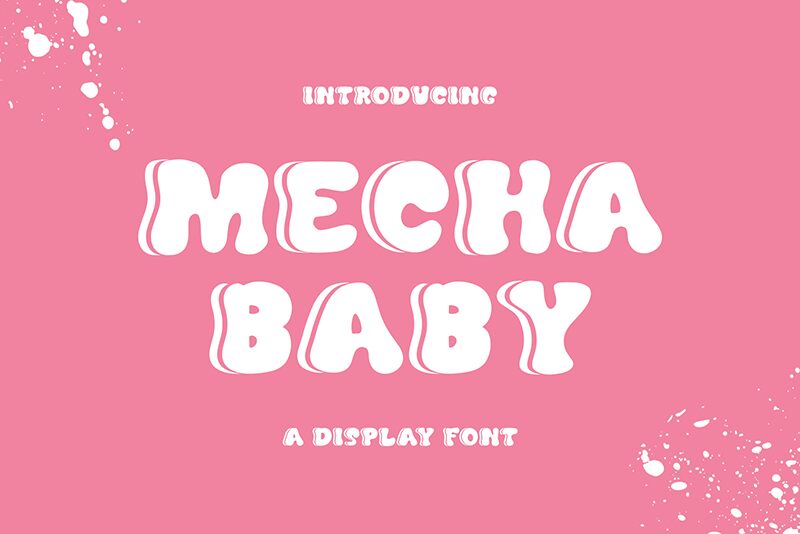
Mecha Baby, crafted by Beautypes, exudes a bold groovy flair that immediately transports one to an era of disco and daring design. With its curvaceous, playful strokes, it stands out as a vivacious choice for any project aiming to make a statement. The font's robust character shapes dance with an undeniable energy, making it perfect for eye-catching headlines and logos that need to convey dynamism and zest.
Its appeal lies in its ability to infuse text with personality and life—ideal for branding, poster design, and any context where the goal is to leave a memorable impression. Mecha Baby's groovy style offers designers a vibrant typographic tool that harmoniously blends vintage charm with contemporary boldness.